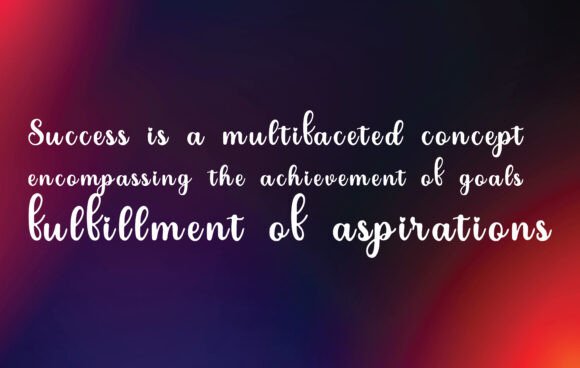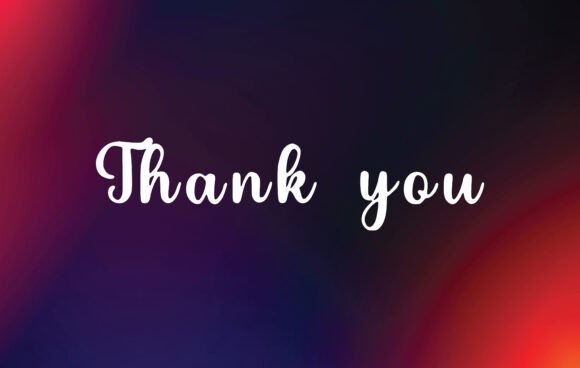
Discover the Beauty of Amraiah Font: Elevate Your Designs with this Lovely Handwritten Font
Are you a designer or crafter looking for a font that can take your creative ideas to the next level? Look no further than Amraiah Font, a stunning handwritten font that is sure to capture your audience’s attention. In this article, we’ll explore the features and benefits of Amraiah Font, and show you how it can be the perfect choice for creating eye-catching logos, branding, and quotes.
What is Amraiah Font?
Amraiah Font is a beautiful handwritten font that is designed to add a personal touch to your designs. With its unique and elegant lettering style, Amraiah Font is perfect for creating a wide range of designs, from logos and branding materials to quotes and social media graphics. This font is carefully crafted to provide a distinctive and sophisticated look that will set your designs apart from the rest.
Key Features of Amraiah Font
So, what makes Amraiah Font so special? Here are some of its key features:
- Unique and Elegant Lettering Style: Amraiah Font features a beautiful handwritten lettering style that is both elegant and sophisticated.
- Highly Versatile: This font is perfect for creating a wide range of designs, from logos and branding materials to quotes and social media graphics.
- Easy to Read: Despite its elegant style, Amraiah Font is highly legible and easy to read, making it perfect for both digital and print designs.
Benefits of Using Amraiah Font
So, why should you choose Amraiah Font for your designs? Here are some of the benefits of using this lovely handwritten font:
- Adds a Personal Touch: Amraiah Font adds a personal touch to your designs, making them more relatable and engaging.
- Creates a Unique Brand Identity: With Amraiah Font, you can create a unique brand identity that sets you apart from your competitors.
- Perfect for Quotes and Social Media Graphics: Amraiah Font is perfect for creating eye-catching quotes and social media graphics that will capture your audience’s attention.
Tips and Tricks for Using Amraiah Font
Here are some tips and tricks for using Amraiah Font:
- Experiment with Different Sizes and Colors: Experiment with different sizes and colors to find the perfect combination for your design.
- Use it for Headings and Titles: Use Amraiah Font for headings and titles to add a personal touch to your designs.
- Pair it with Other Fonts: Pair Amraiah Font with other fonts to create a unique and visually appealing design.
In conclusion, Amraiah Font is a lovely and beautiful handwritten font that has the potential to take your creative ideas to the highest level. With its unique and elegant lettering style, Amraiah Font is perfect for creating eye-catching logos, branding, and quotes. Whether you’re a designer or crafter, Amraiah Font is a great choice for adding a personal touch to your designs. So why wait? Download Amraiah Font today and start elevating your designs to the next level.